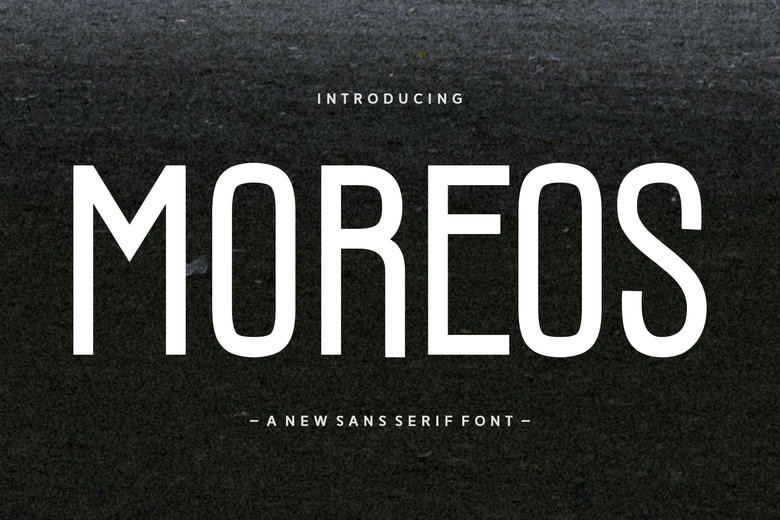
Moreos Font
Moreos is a modern sans-serif font designed for versatility and elegance. Its clean lines and balanced proportions make it ideal for branding, headlines, and digital interfaces. With contemporary styling and readability, Moreos delivers sophistication and clarity across print and web designs.
Moreos Sans Serif Font